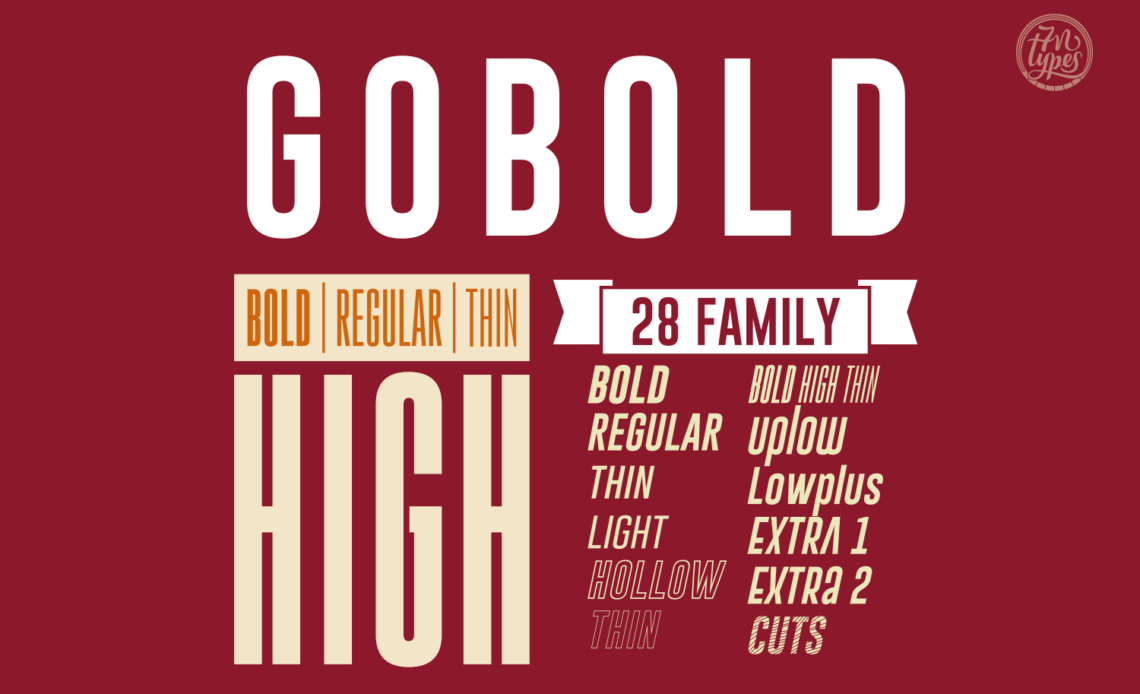
Prepare to be captivated by Gobold, the awe-inspiring sans serif font family that will revolutionize your design endeavors. Crafted with meticulous precision by Situjuh, Gobold boasts an astonishing array of 28 variations, each harmoniously complementing the others. This remarkable versatility empowers designers to effortlessly tackle a kaleidoscope of projects, transforming their creative visions into tangible masterpieces.
Immerse yourself in the boundless possibilities of Gobold. Its elegant letterforms exude a timeless charm, reminiscent of classic typography while simultaneously embracing contemporary design sensibilities. Whether you seek to craft captivating logos, alluring headlines, or engaging body text, Gobold stands ready to elevate your creations to new heights of visual allure.
Unleash your creativity and embark on a typographic odyssey with Gobold. Its diverse range of weights and styles empowers you to seamlessly adapt your designs to suit any project's unique requirements. From delicate and ethereal compositions to bold and impactful statements, Gobold effortlessly transforms your words into captivating works of art.
Embrace the allure of Gobold and unlock a world of typographic possibilities. Its intuitive design ensures effortless integration into your existing design workflow, allowing you to effortlessly elevate the visual impact of your projects. Experience the transformative power of Gobold and witness the remarkable metamorphosis of your designs.